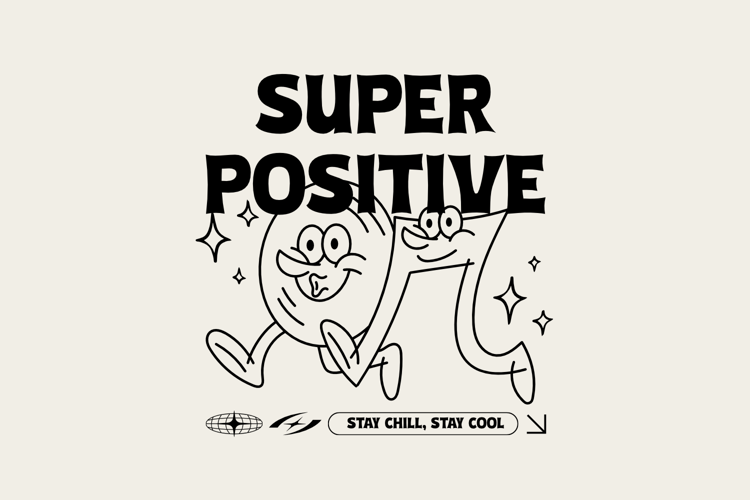
Super Positive Font
About Super Positive Font
Introducing "Super Positive": A Headline Font with Infectious Optimism!
Super Positive is a bold and vibrant headline font designed to infuse your projects with infectious optimism. Its playful personality guarantees your words will grab attention and make a lasting impression.